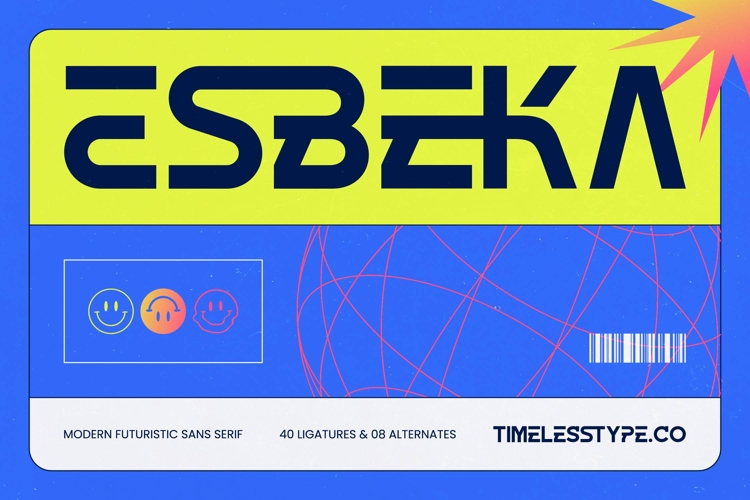
Esbeka - Modern Futuristic Sans Serif
Elevate your creative vision with a typeface that bridges the gap between today and tomorrow. Esbeka - Modern Futuristic Sans Serif is a masterclass in contemporary typography, offering a bold, geometric aesthetic that commands immediate attention. Its minimalist architecture and forward-thinking design make it an essential tool for designers seeking a cutting-edge look. By blending sharp angles with a structured technical feel, this typeface provides a high-impact presence for any modern project.
Global reach meets uncompromising style in this comprehensive typographic solution. With its extensive multilingual support, Esbeka - Modern Futuristic Sans Serif adapts seamlessly across global markets, making it incredibly versatile for international projects. Whether you are launching a tech startup or a global marketing campaign, Esbeka - Modern Futuristic Sans Serif ensures your message remains legible and impactful. This global compatibility makes it a highly versatile asset for brands aiming for a worldwide audience.